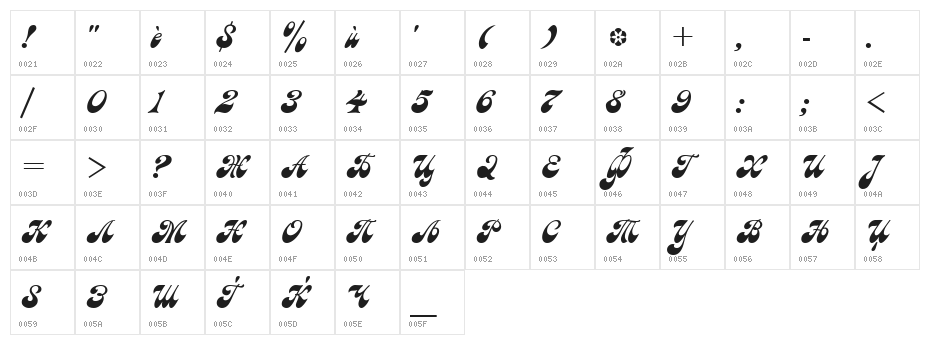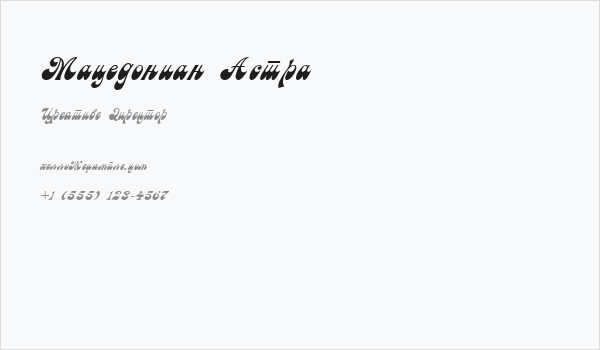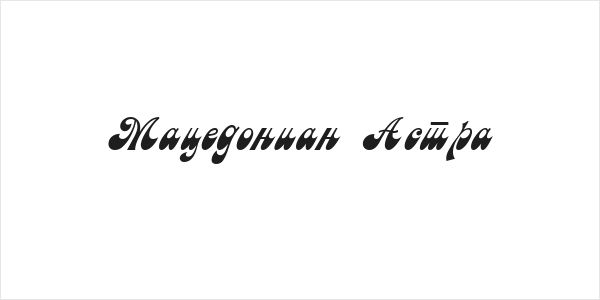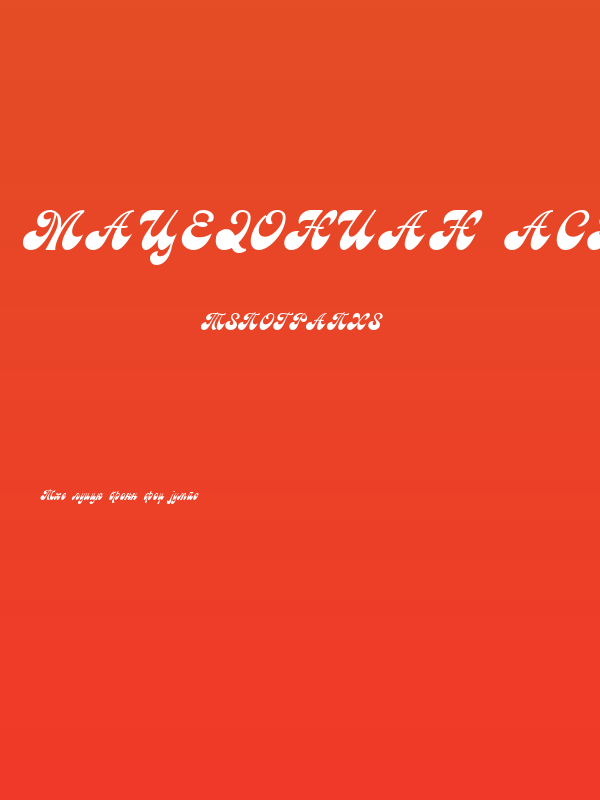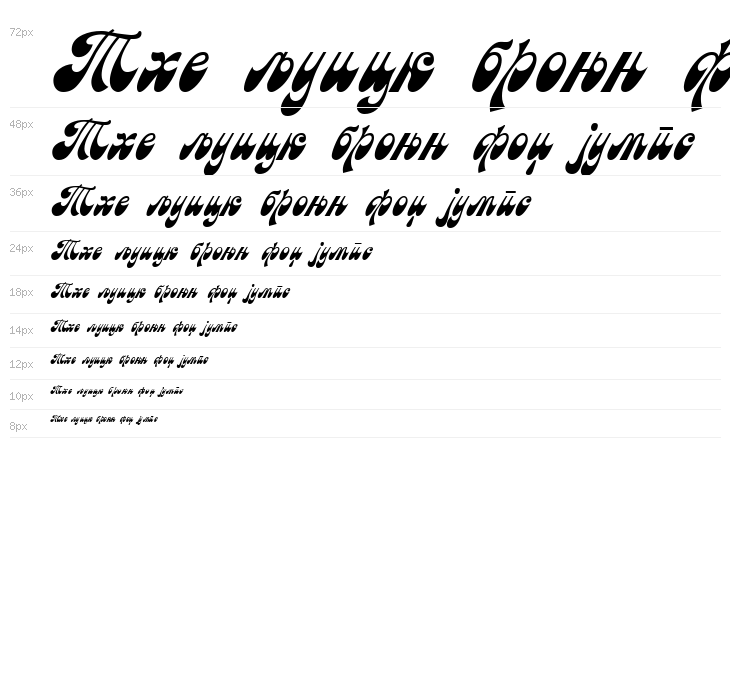
Macedonian Astra Font
Macedonian Astra Description
This font features a bold and expressive style with a strong emphasis on curves and flourishes. The characters are designed with a high contrast between thick and thin strokes, giving it a dynamic and energetic appearance. The uppercase letters are particularly ornate, with sweeping lines and decorative elements that add a touch of elegance. The lowercase letters maintain a consistent style, ensuring readability while still being visually striking. The numbers are bold and clear, making them suitable for various display purposes. Special characters are included, each designed to complement the overall aesthetic of the font. This font is ideal for projects that require a dramatic and artistic touch.
Proposed ProjectsIdeal for branding, posters, invitations, and any project needing a dramatic flair.